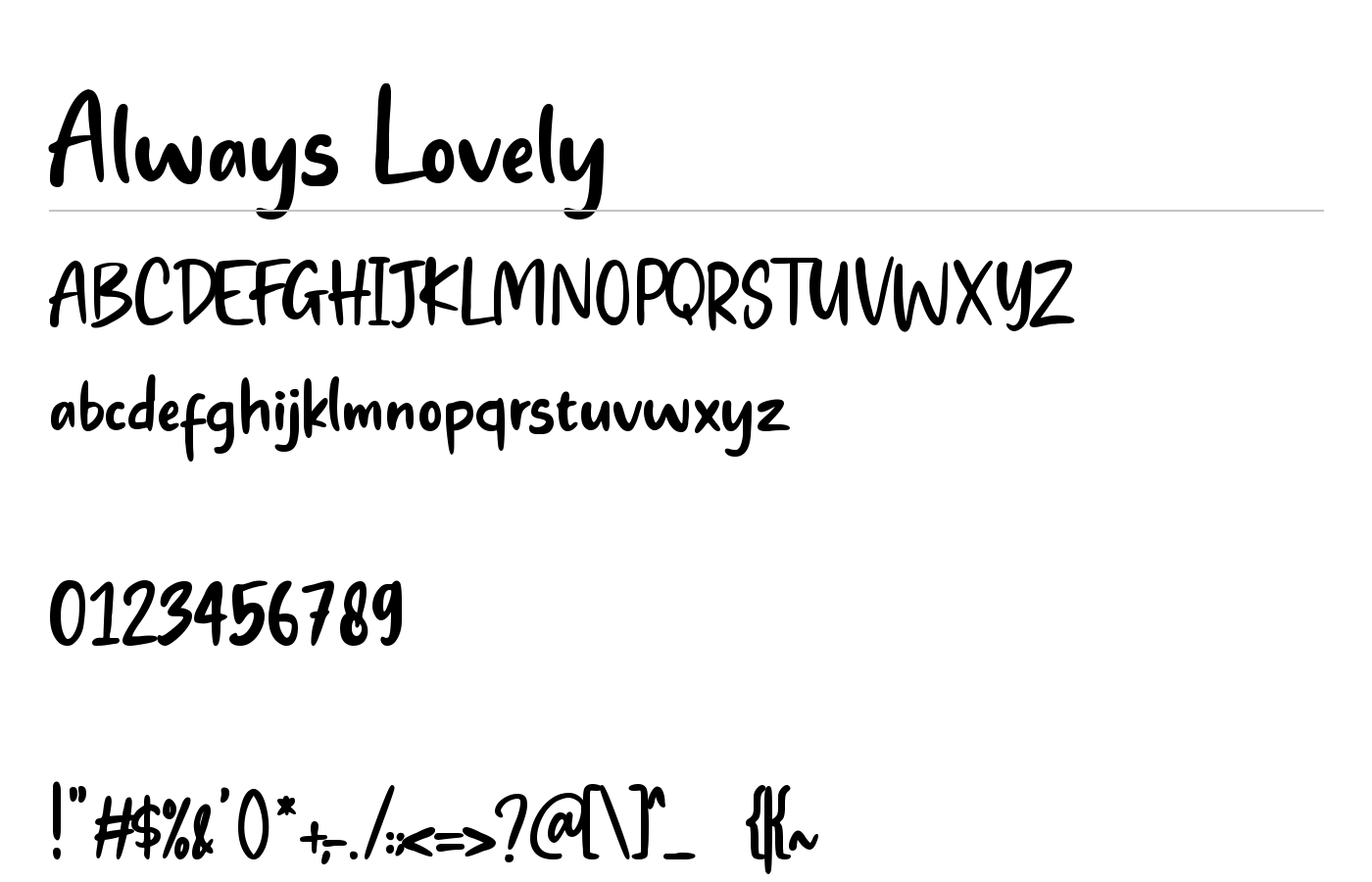
Always Lovely Font is a casual, handwritten script with a friendly and approachable feel. Its smooth, slightly irregular strokes and medium weight create a natural, relaxed vibe that works well for informal branding, social media, and personal projects. This font adds warmth and personality, making it perfect for designs that want to convey sincerity and charm.
Always Lovely Font
About Always Lovely Font
| Font family | Always Lovely Font |
| Designer | Muhamad Yusron Billah |